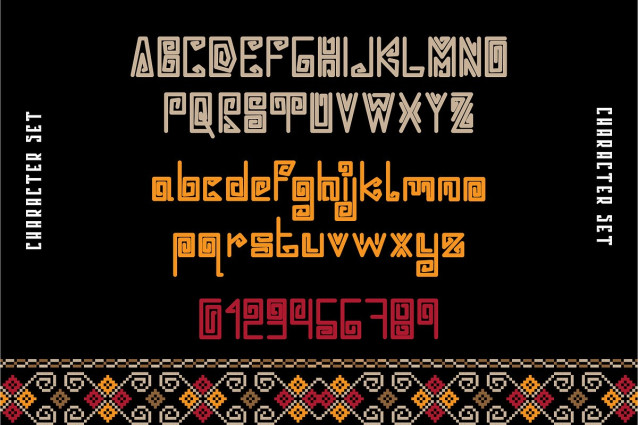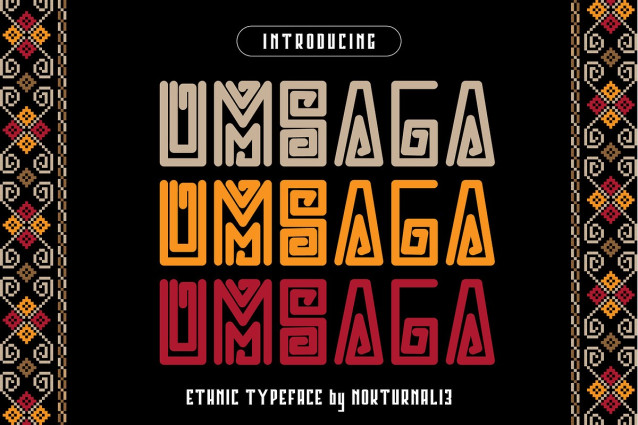
Umsaga Display Font is a bold and expressive ethnic-style display font designed by Nokturnal13. Inspired by traditional cultural motifs and tribal aesthetics, this typeface blends ancient symbolism with a modern typographic structure. UMSAGA is perfect for projects that aim to capture a sense of heritage, mysticism, and bold artistic identity.
Whether you’re working on branding, posters, apparel, music covers, or editorial titles, UMSAGA adds a distinctive and culturally rich feel to your designs. Its unique letterforms are crafted to stand out while still being readable, making it ideal for both digital and print use.